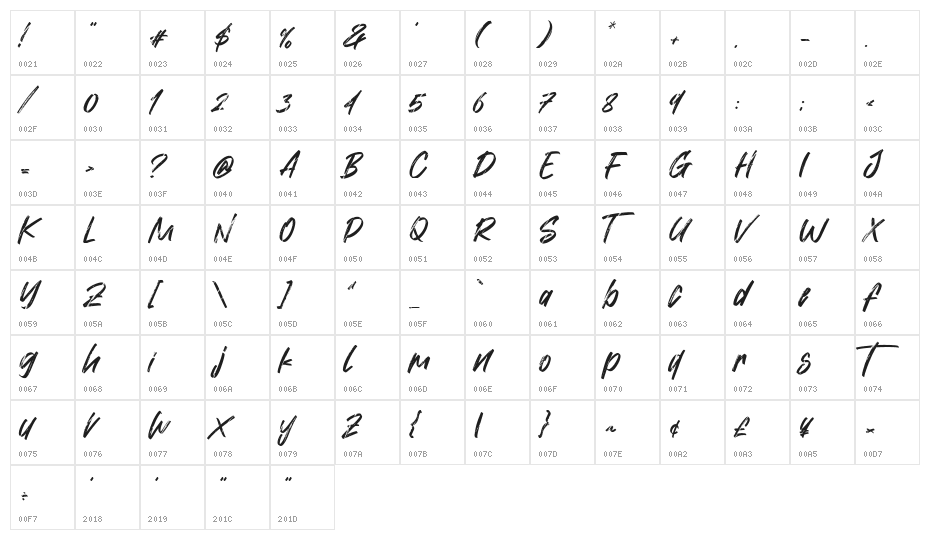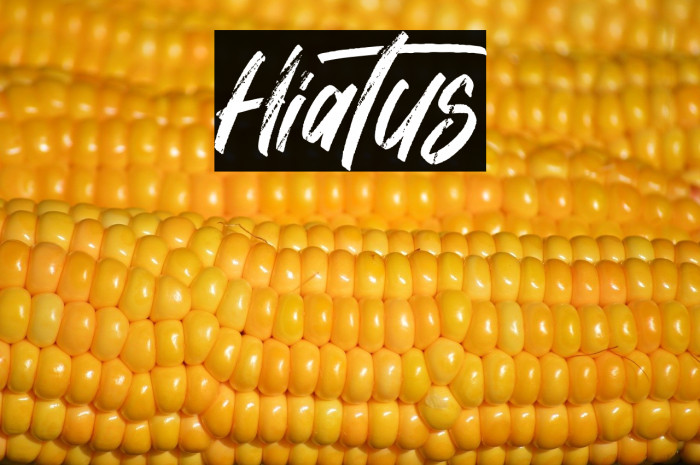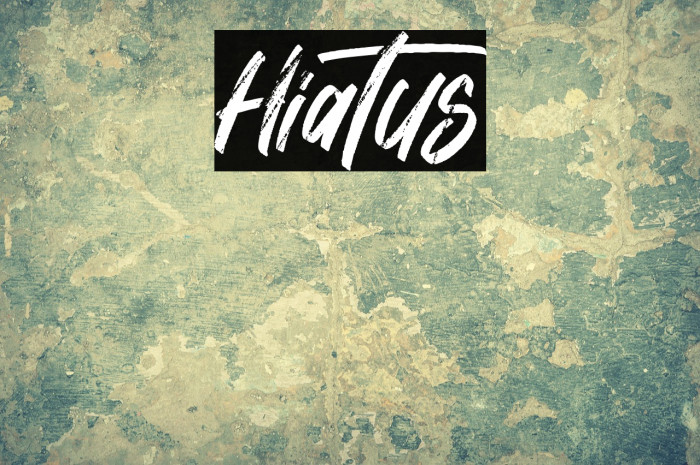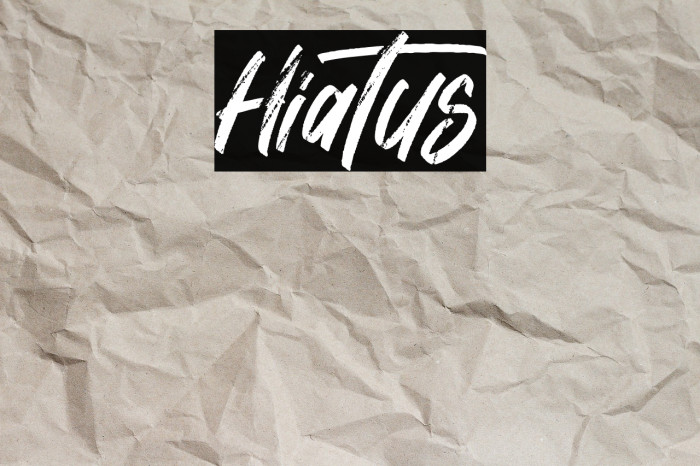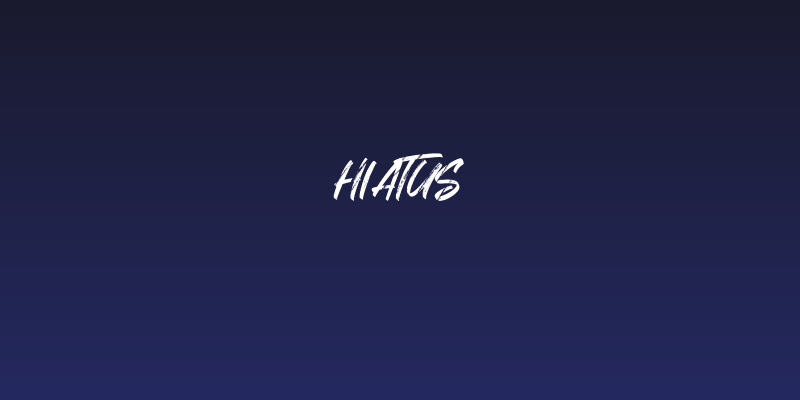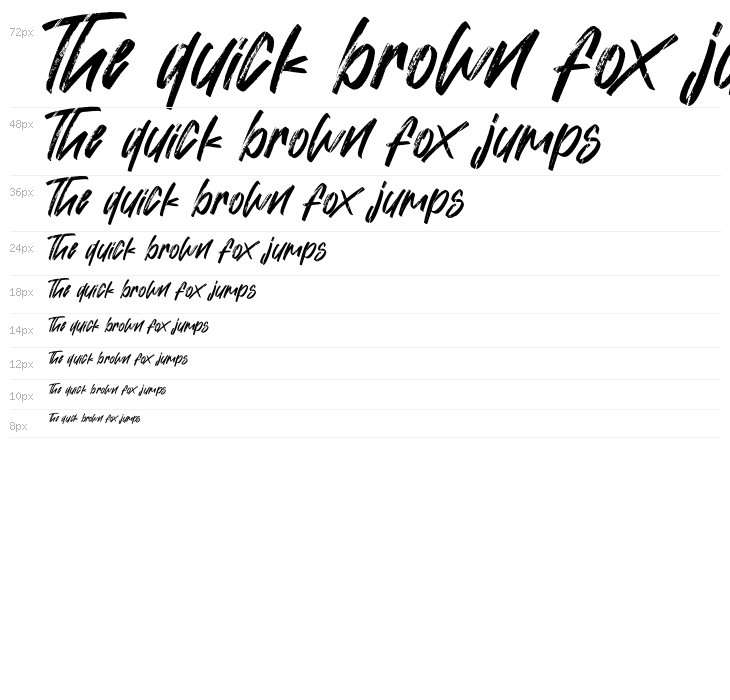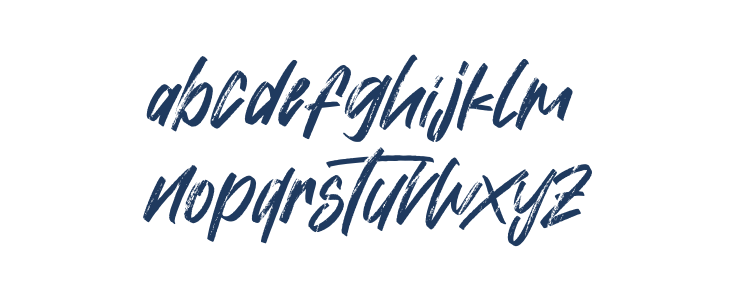
Hiatus Font
Hiatus Description
This font exudes a bold, energetic style with a handwritten appearance. The strokes are thick and dynamic, giving a sense of movement and spontaneity. Each character is uniquely crafted, with varying stroke widths that create a textured, brush-like effect. The uppercase and lowercase letters maintain a consistent flow, while the numerals and special characters complement the overall aesthetic. This font is perfect for projects that require a personal, artistic touch, such as invitations, posters, or branding materials. Its expressive nature makes it stand out, capturing attention with its lively and informal vibe.
Proposed ProjectsIdeal for invitations, posters, branding, and artistic projects.